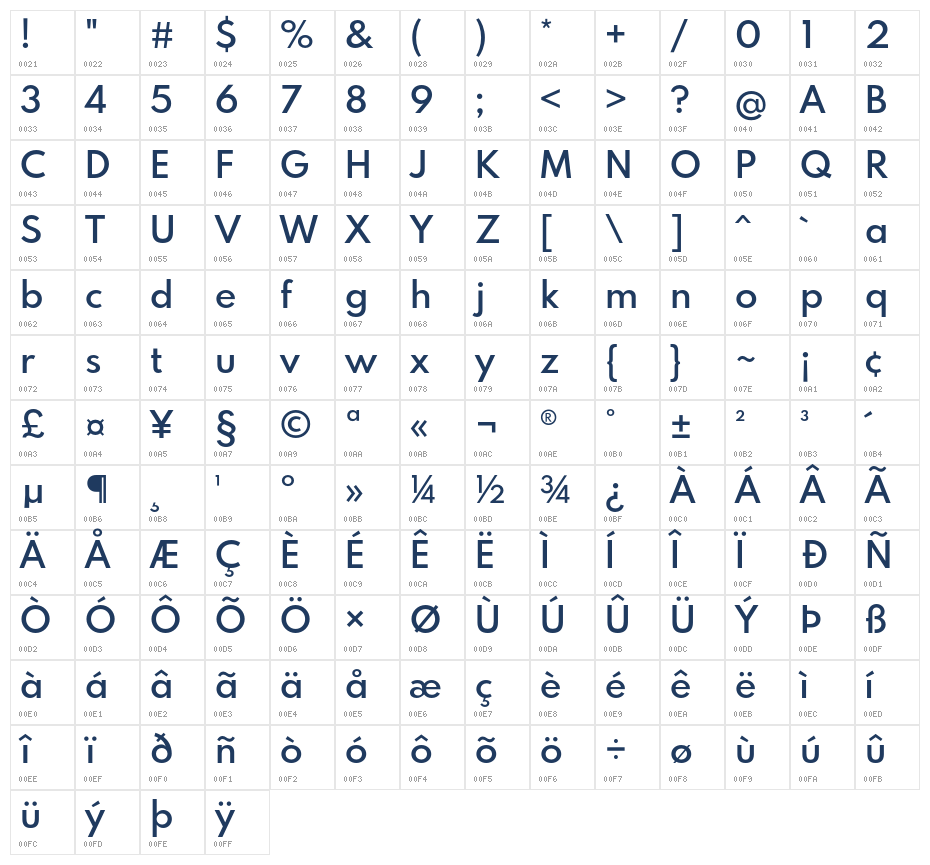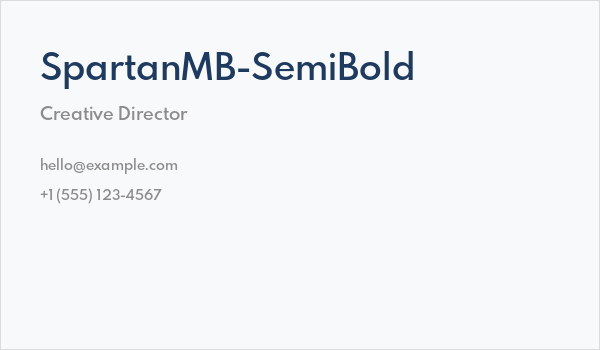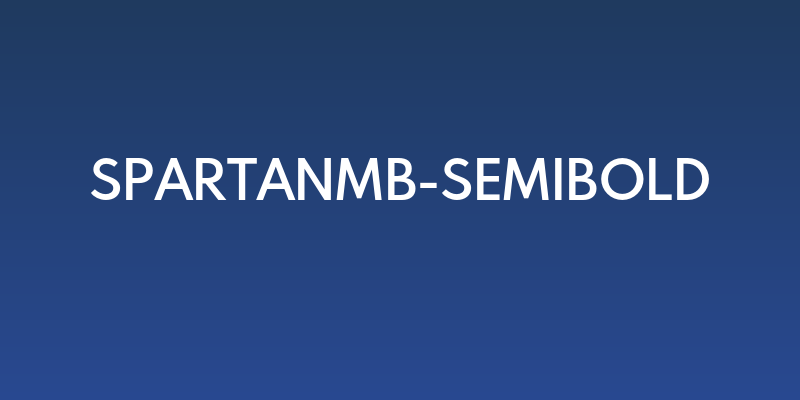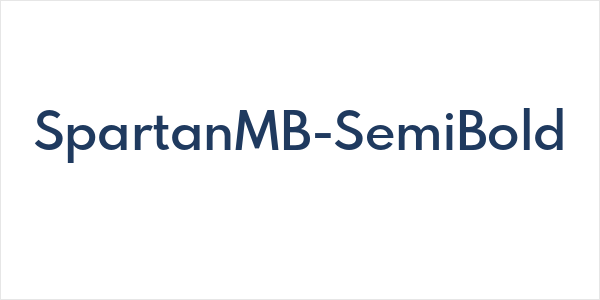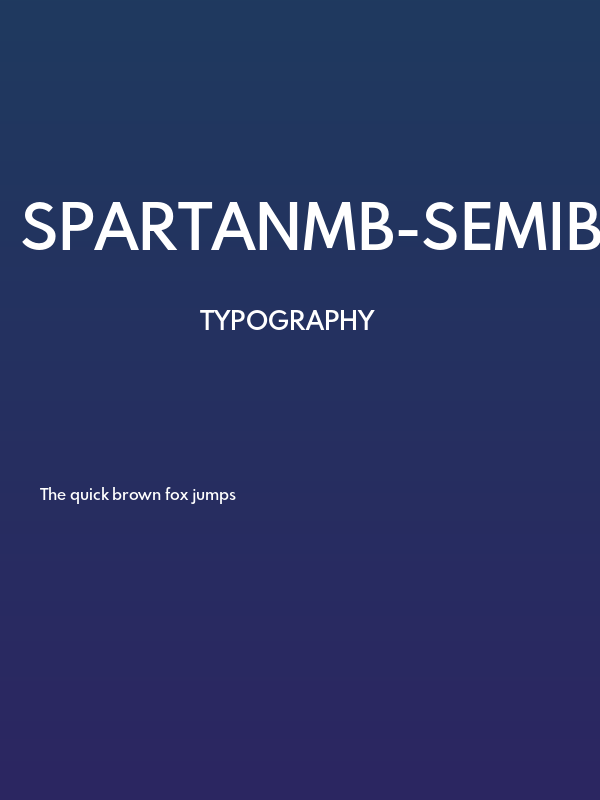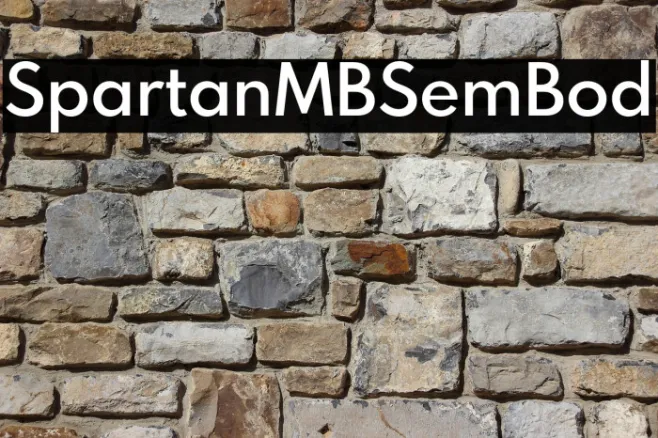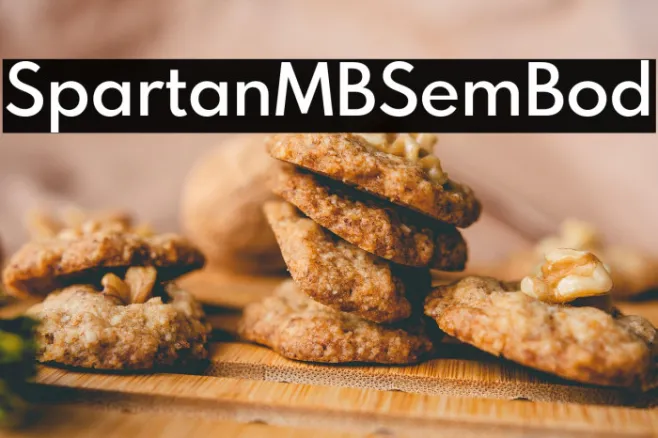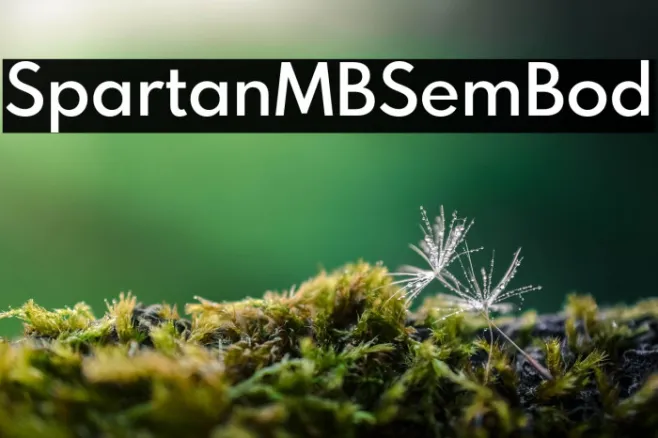
SpartanMB-SemiBold Font
SpartanMB-SemiBold Description
A clean, modern sans-serif font with rounded edges and uniform stroke width.
| Overall Style | Modern, Friendly |